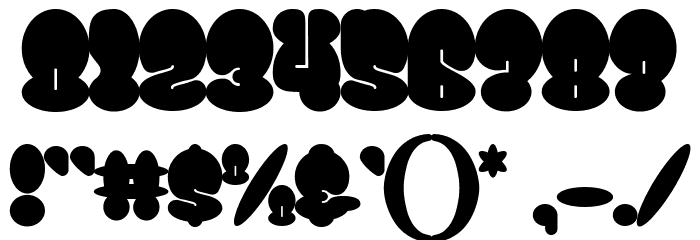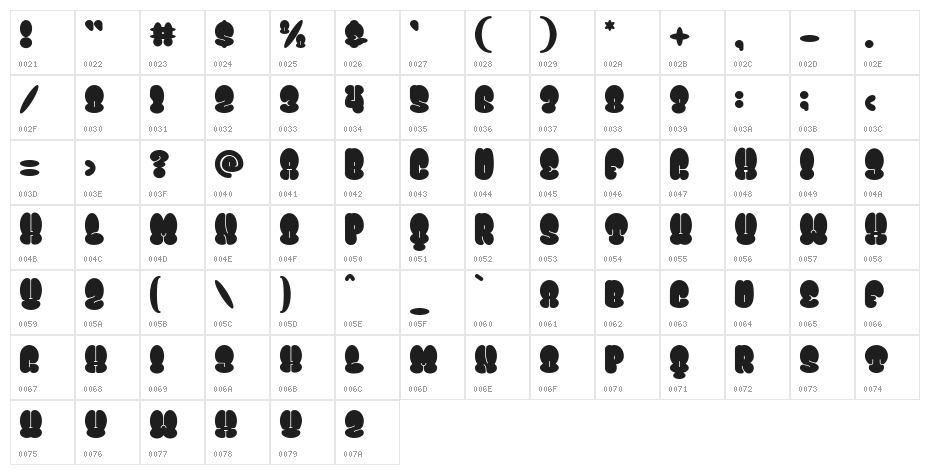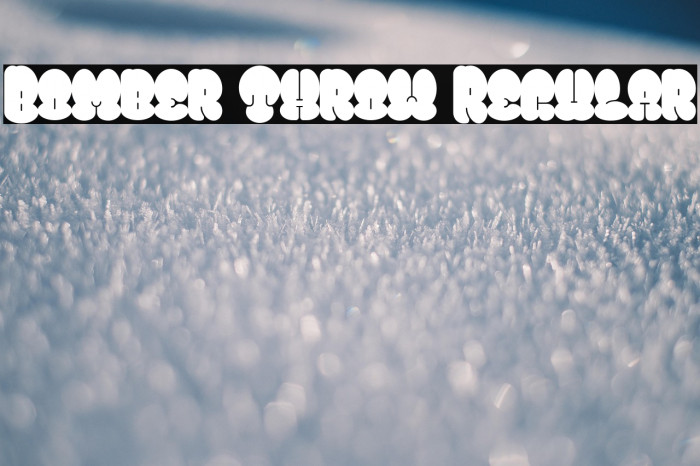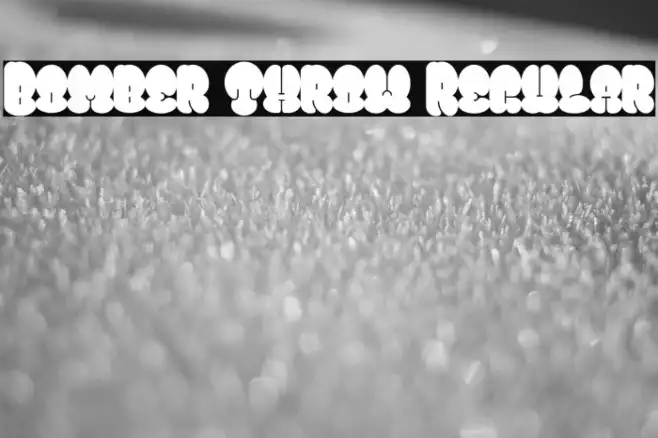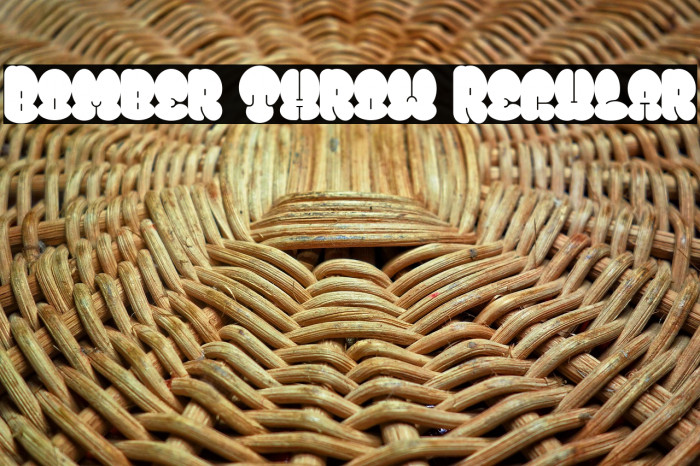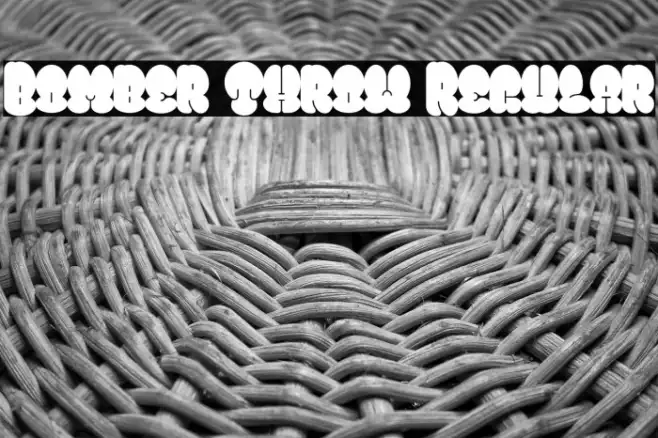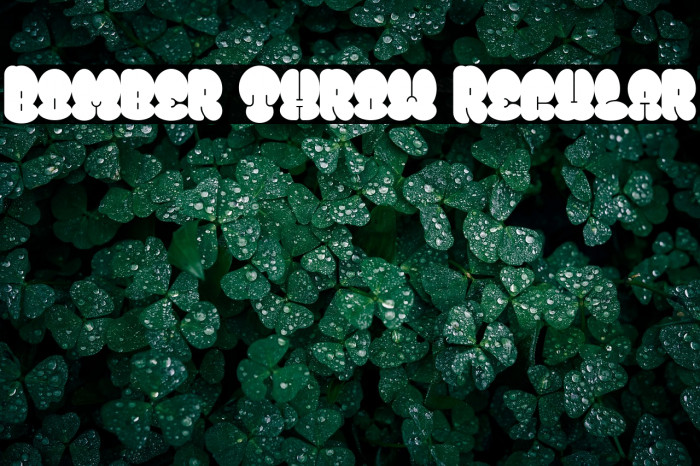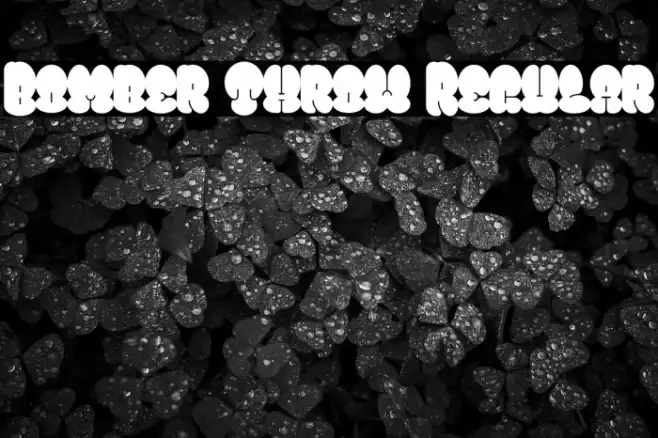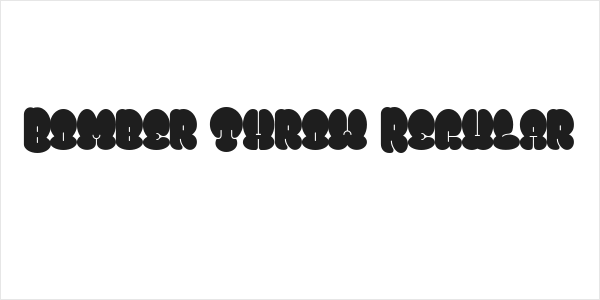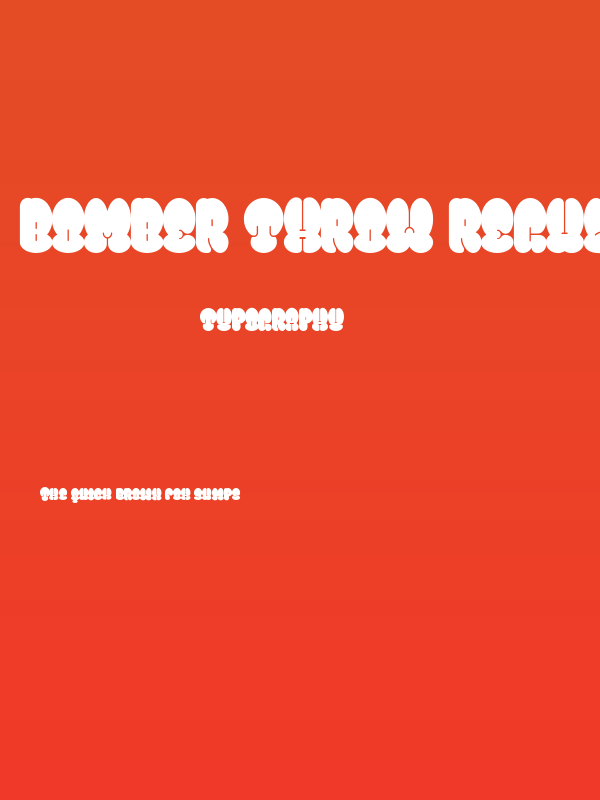
Bomber Throw Regular Font
Bomber Throw Regular Description
This font features a bold and playful design, characterized by its thick, rounded shapes and unique, bubbly appearance. The letters are heavily stylized, with exaggerated curves and a consistent weight throughout, giving it a cartoonish and whimsical feel. The characters are tightly spaced, enhancing the compact and cohesive look of the text. The font's boldness and distinct style make it stand out, making it ideal for eye-catching designs. Its uniform stroke width and lack of contrast contribute to its modern and fun aesthetic, suitable for creative and informal projects.
| Overall Style | Playful, Modern |
| Use Case | Logos, Posters, Creative Design |
| Proposed Projects | Ideal for children's books, playful branding, posters, and creative design projects. |